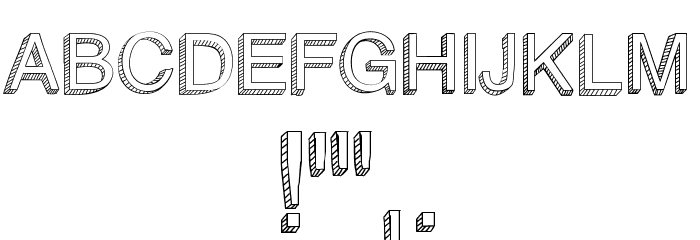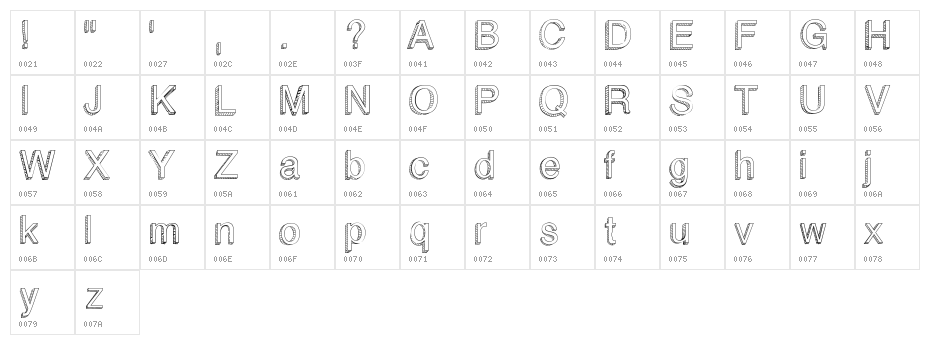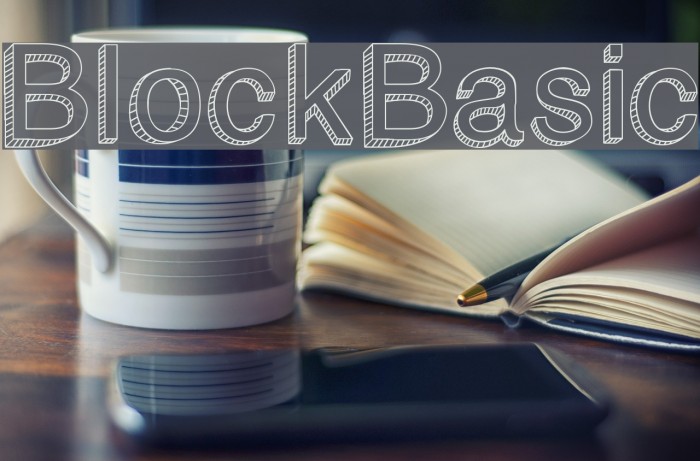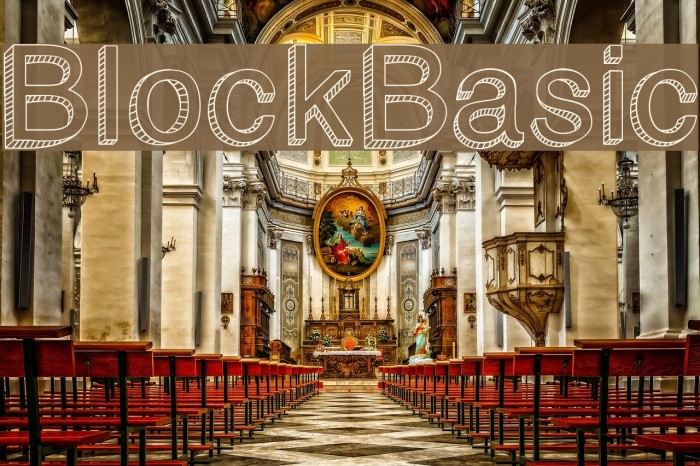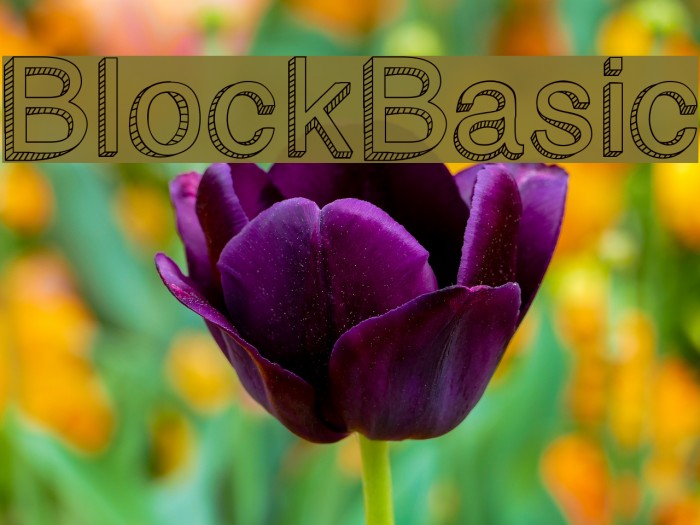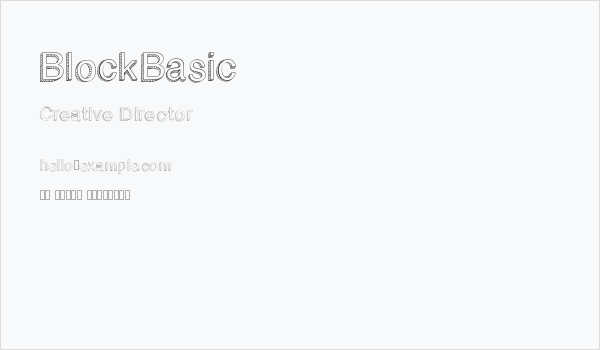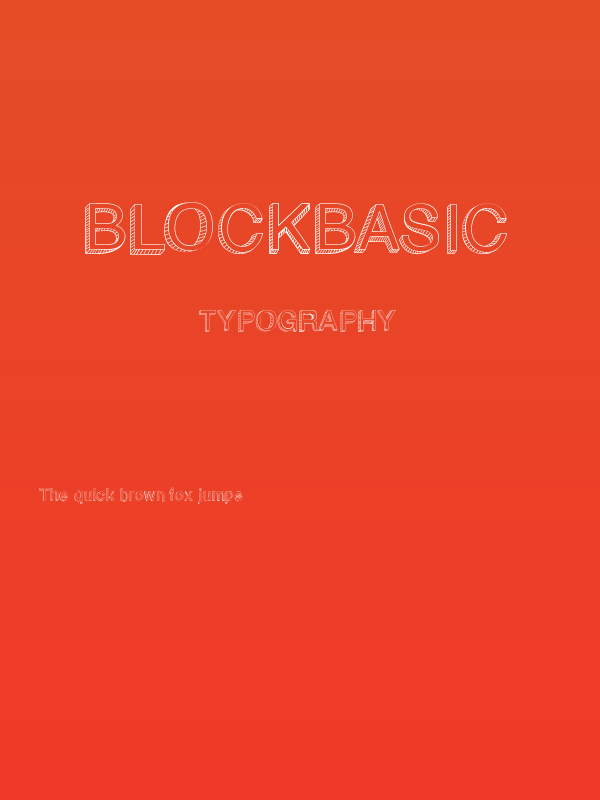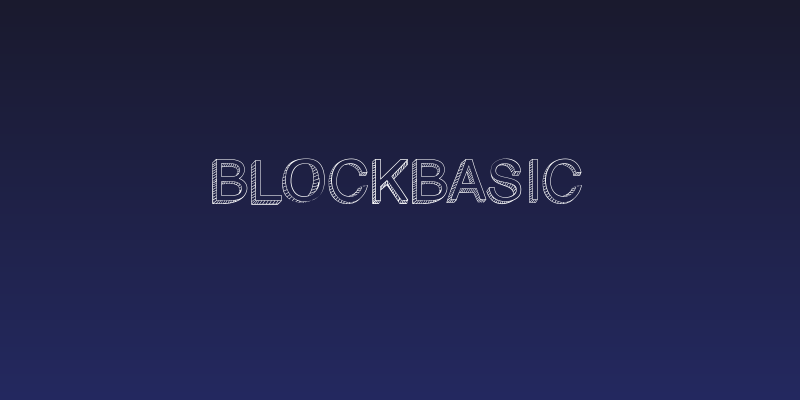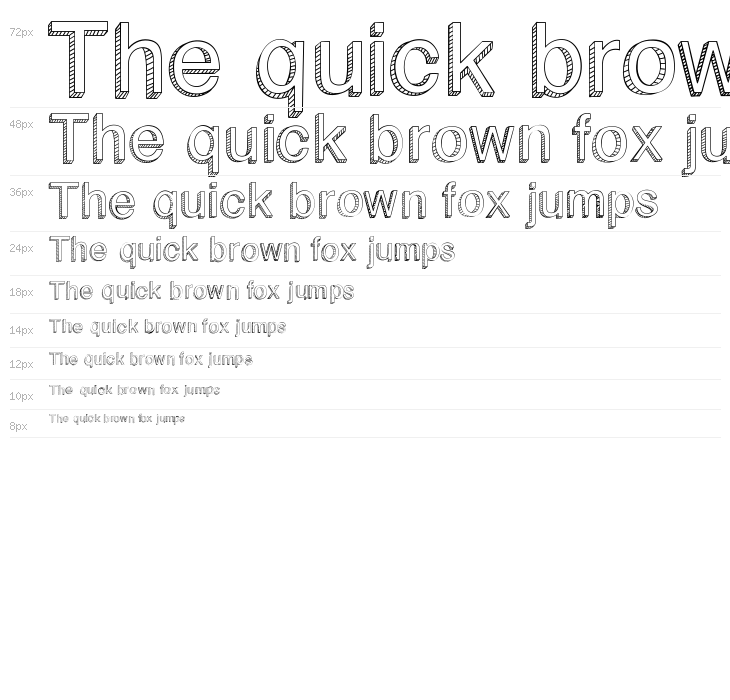
BlockBasic Font
BlockBasic Description
This font features a bold, outlined style with a distinct diagonal hatching pattern inside each character. The uppercase and lowercase letters maintain a consistent width, giving a uniform appearance. The design is playful yet structured, making it suitable for creative projects. The numerals and special characters follow the same stylistic approach, ensuring cohesion across all elements. The font's unique texture adds depth and visual interest, making it stand out in various applications.
| Proposed Projects | Ideal for posters, headlines, branding materials, and any project requiring a distinctive, eye-catching typeface. |